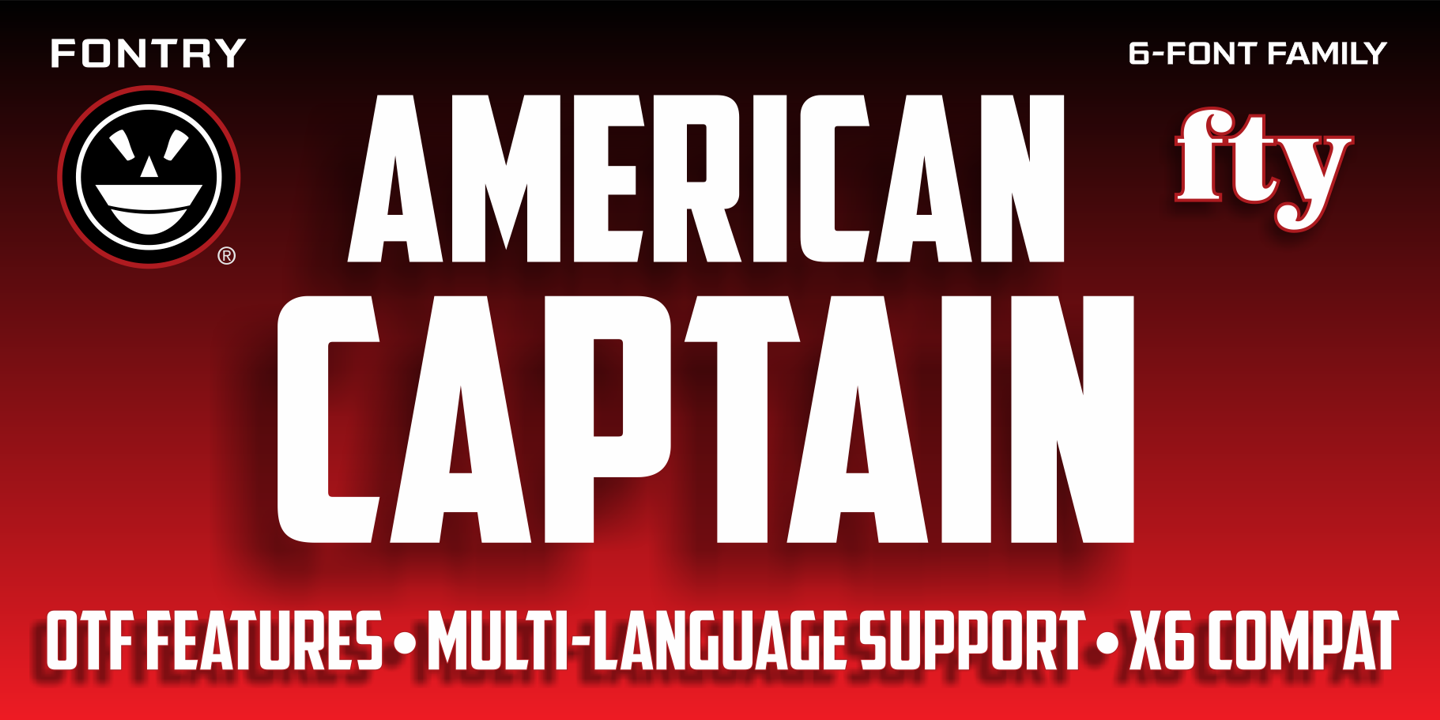
The American Captain Font is ideal for patriotic campaign materials, military-themed designs, superhero comic layouts, sports team branding, American flag merchandise, veteran organization logos, Fourth of July celebrations, and heroic poster designs. This powerful typeface works exceptionally well for defense contractors, military museums, patriotic clothing brands, American sports leagues, veteran services, and businesses celebrating American values, strength, and heroism.
What makes the American Captain Font exciting is its bold embodiment of American courage, leadership, and unwavering determination. The font features strong, commanding letterforms with military-inspired details and heroic proportions that immediately convey strength, honor, and patriotic pride. Its authoritative character and star-spangled aesthetic create an instant connection to American heroism and national identity. The font's powerful presence and inspirational quality make it perfect for brands wanting to celebrate freedom, justice, and the American spirit.
The American Captain Font family includes heroic variations: Regular, Bold, Heavy, Stencil, Shield, and Stars versions. Each style maintains the font's patriotic character while offering different levels of military strength and design versatility. The family also features American flag elements, star ornaments, and patriotic symbols that enhance freedom-themed design projects.
Whether you're developing patriotic brand identities, creating American-themed marketing materials, or designing heroic promotional campaigns, the American Captain Font Free Download provides the perfect solution for projects requiring authentic American typography. This remarkable typeface brings genuine patriotic spirit to design work, making it an essential resource for designers celebrating American values, military service, and national pride.